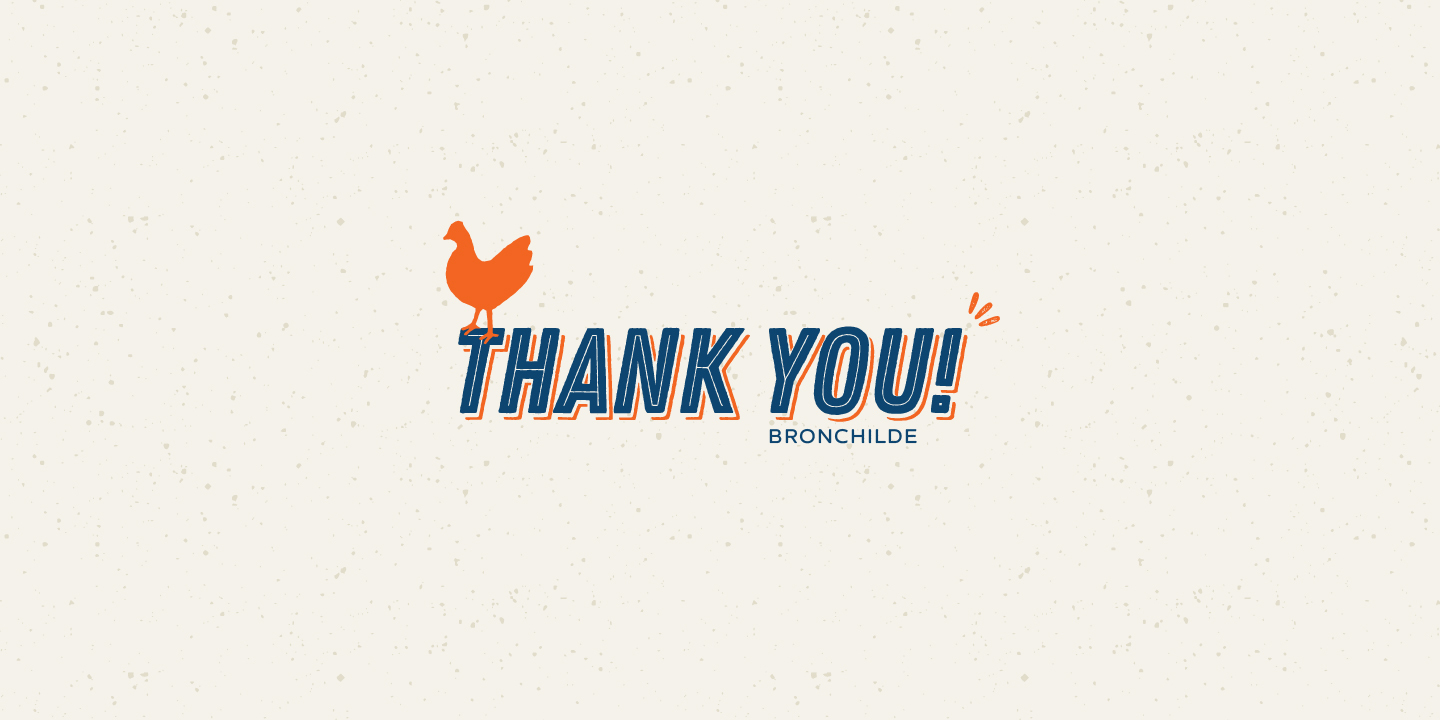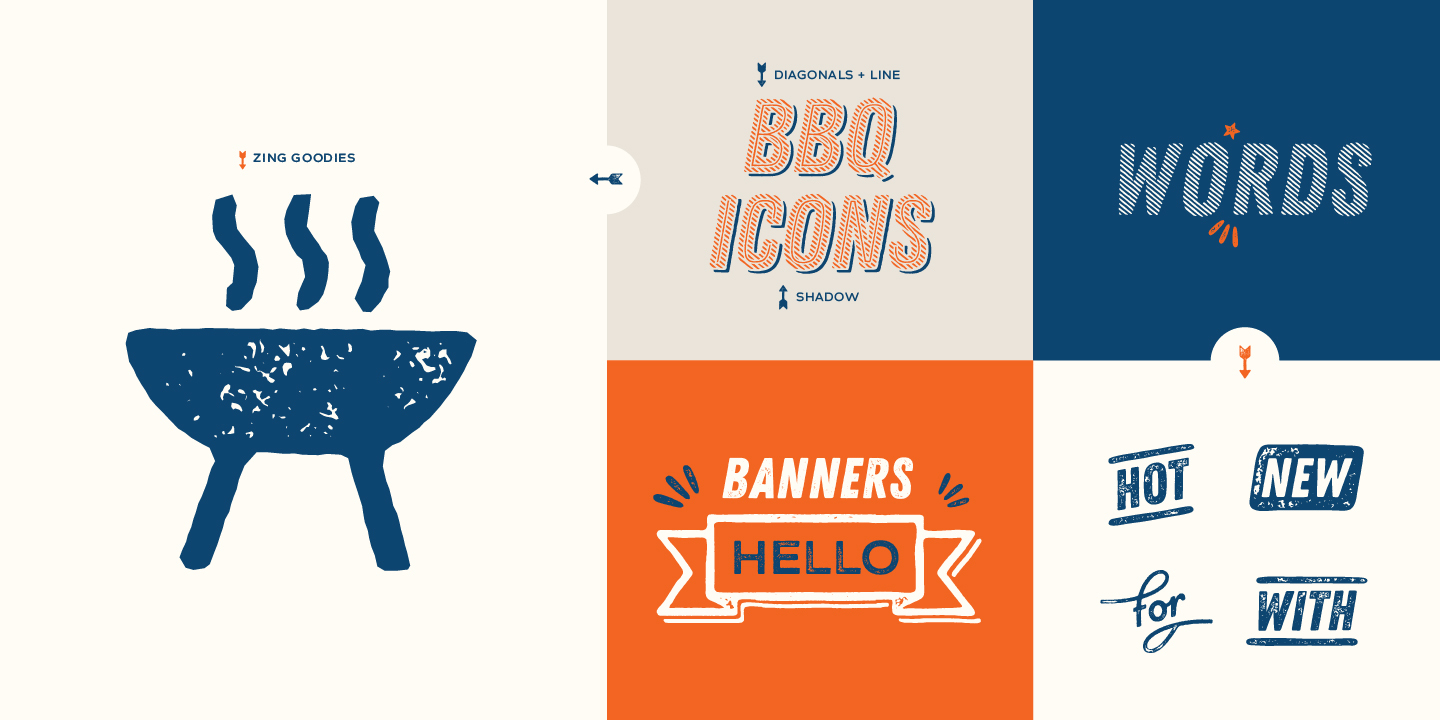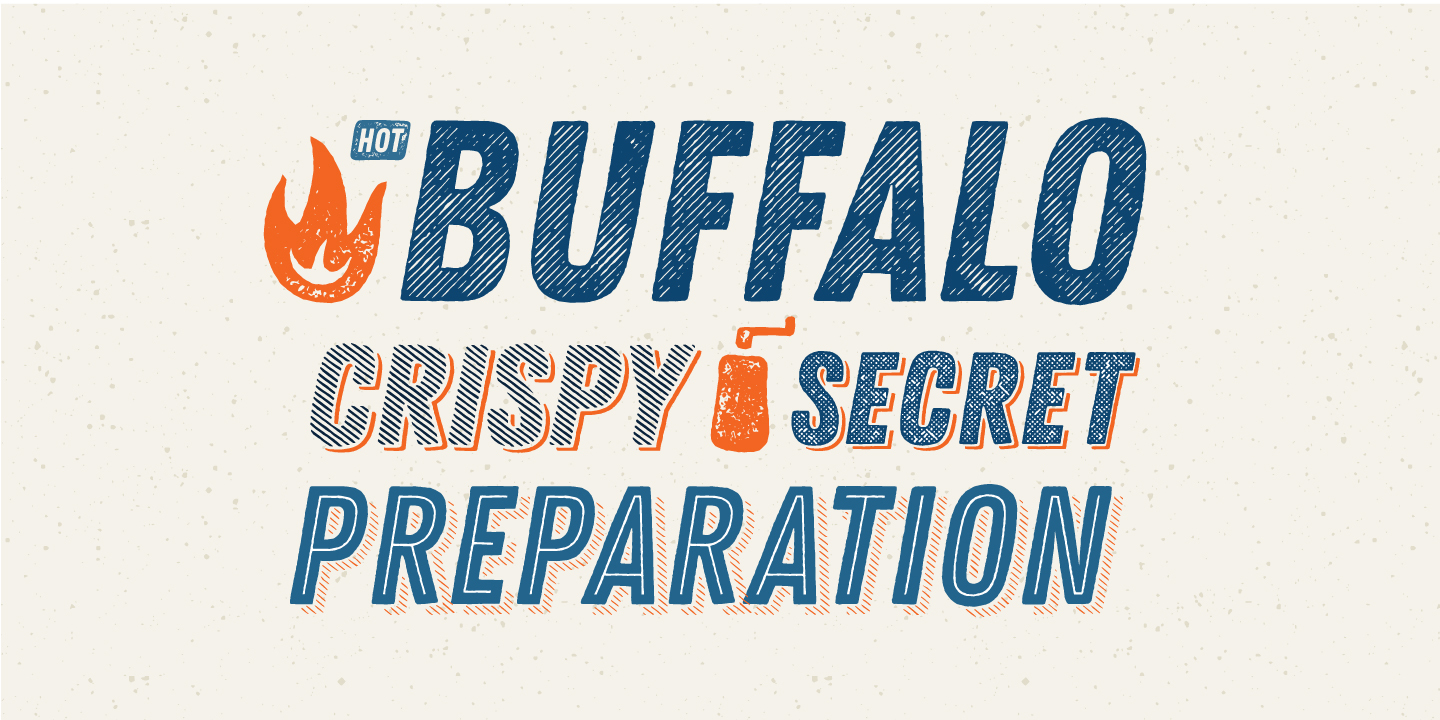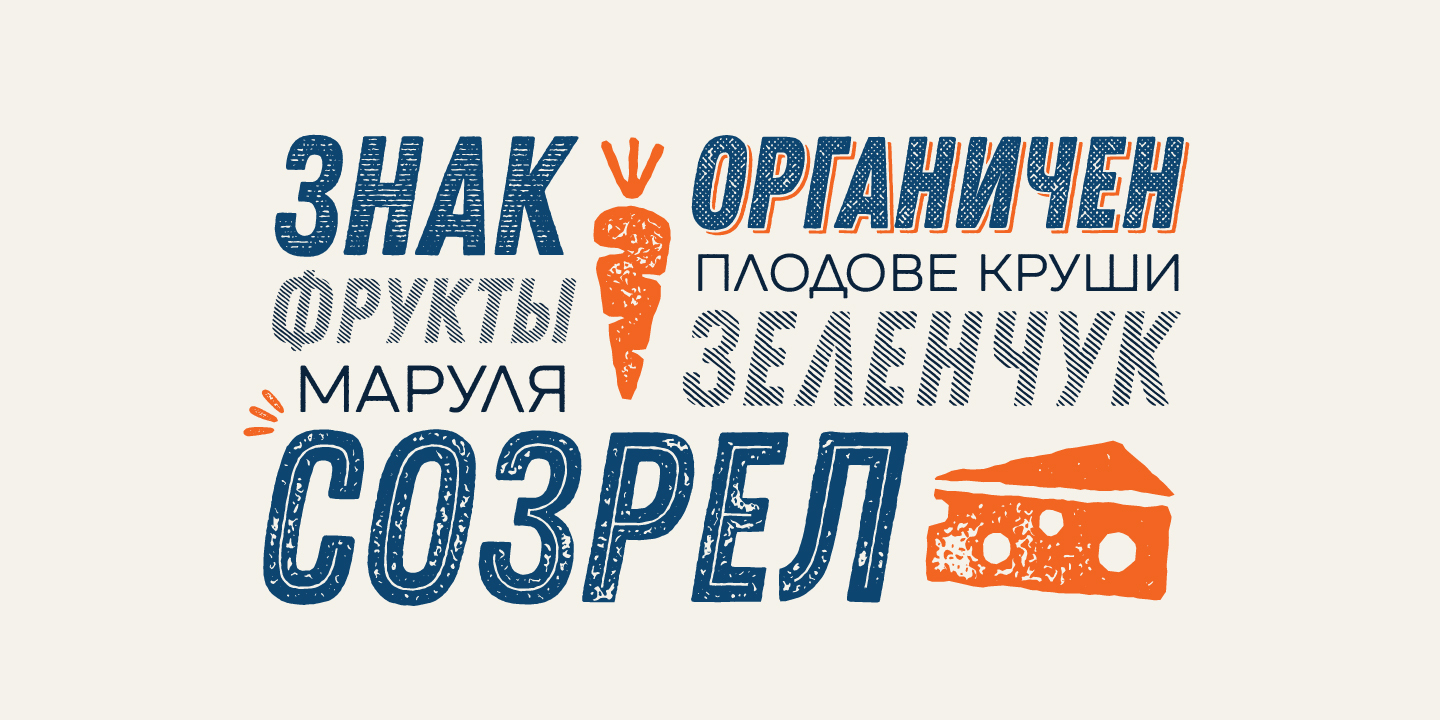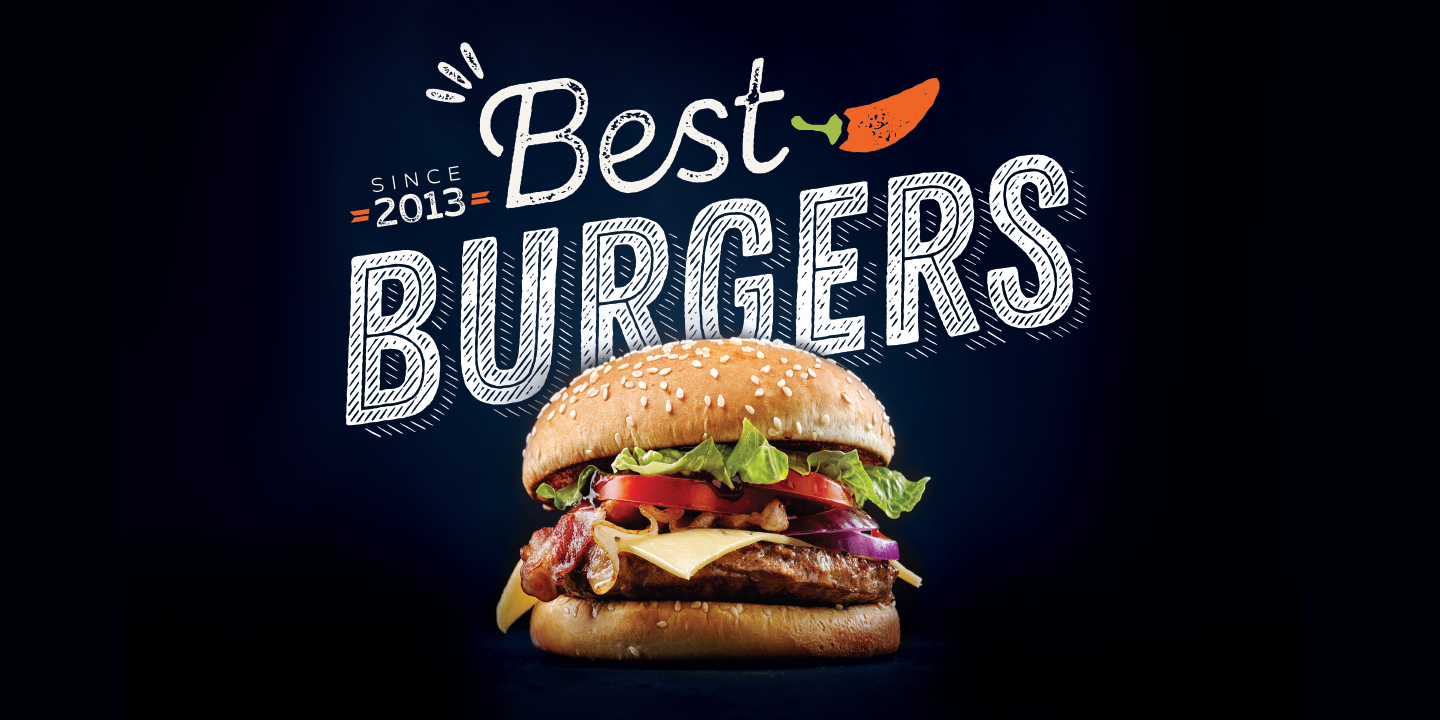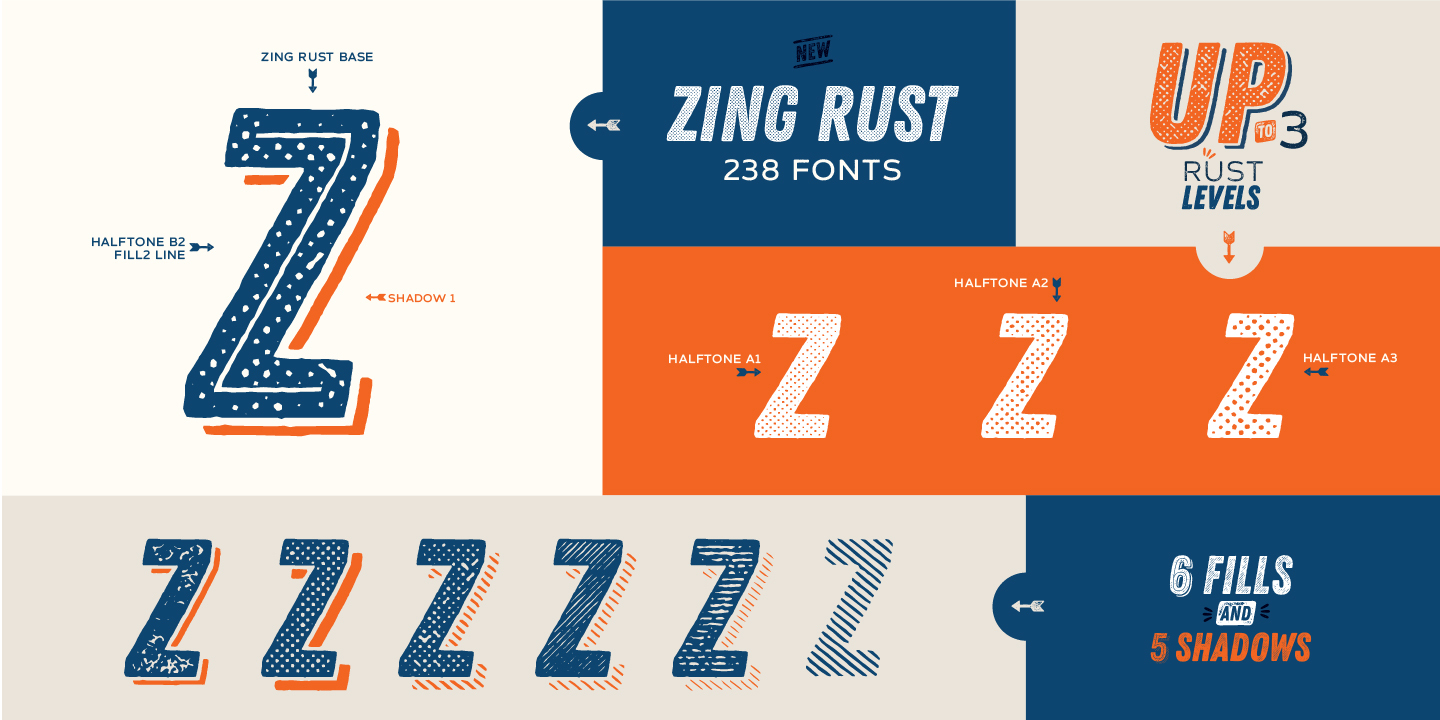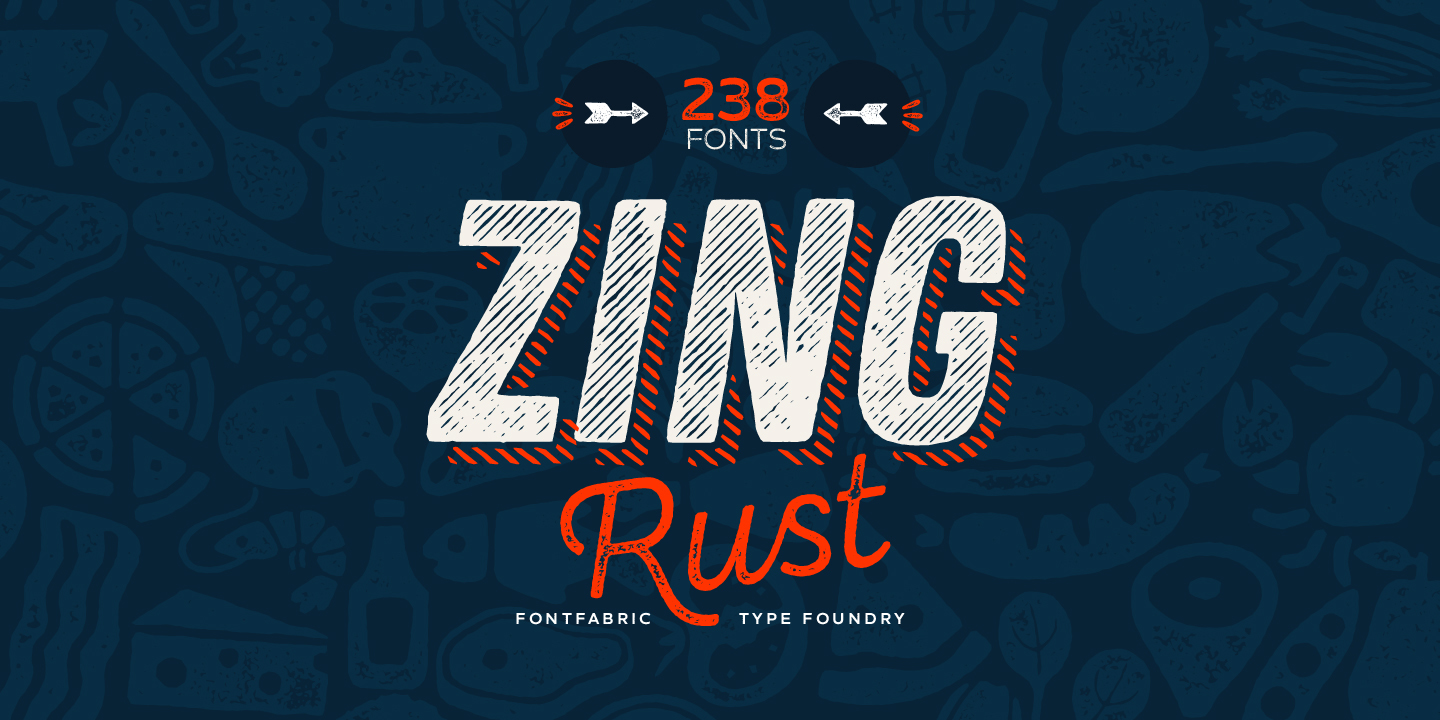
Zing Rust Complete Family - 238 fonts (238 fonts)
Zing Goodies:
As a dessert we serve you Zing GoodiesTM that tops off the whole package, making it an extraordinary delicacy! It has 4 basic forms—Bakery, BBQ, Banners and Words — each containing two styles and plenty of adorable icons including food, banners, ribbons, ornaments, and a beautiful selection of words to accentuate your design.